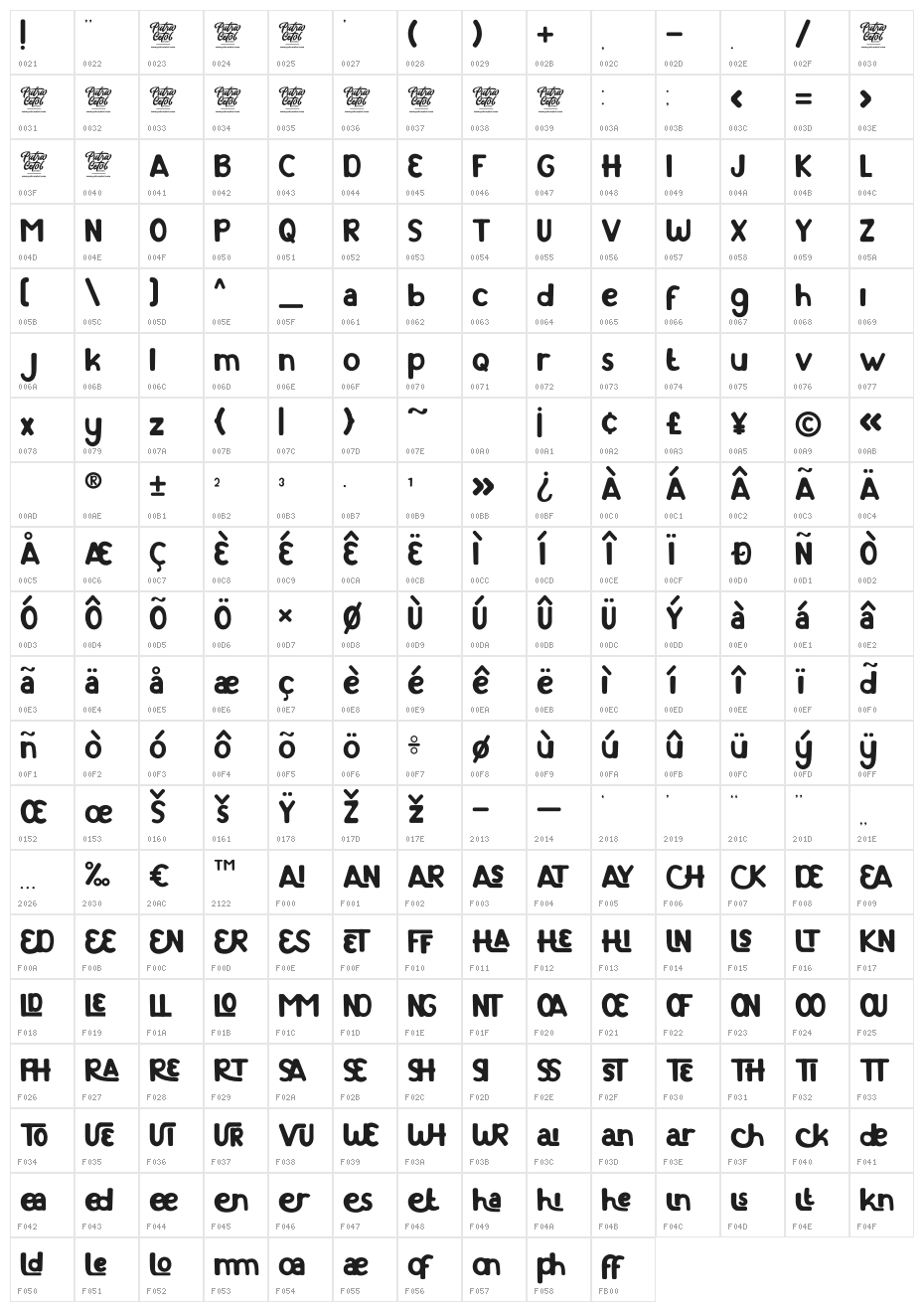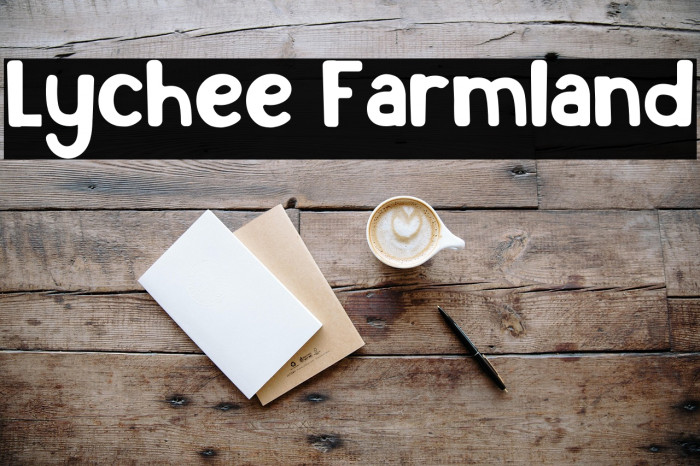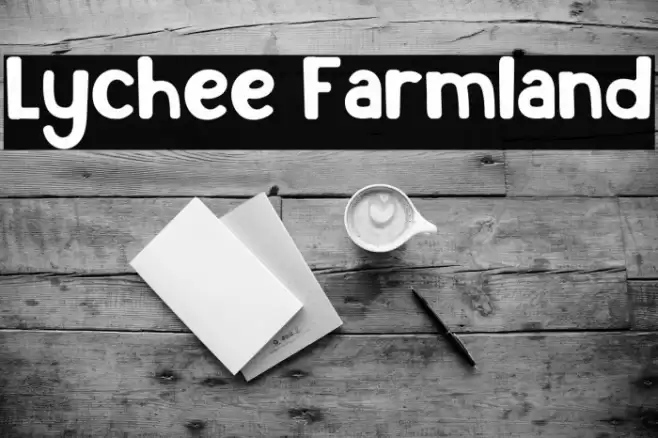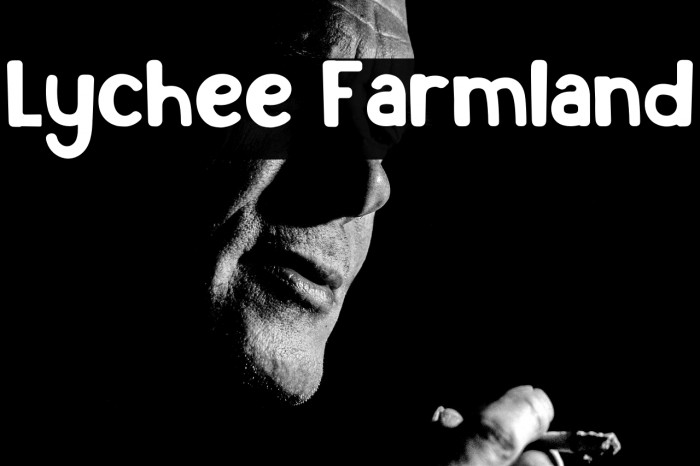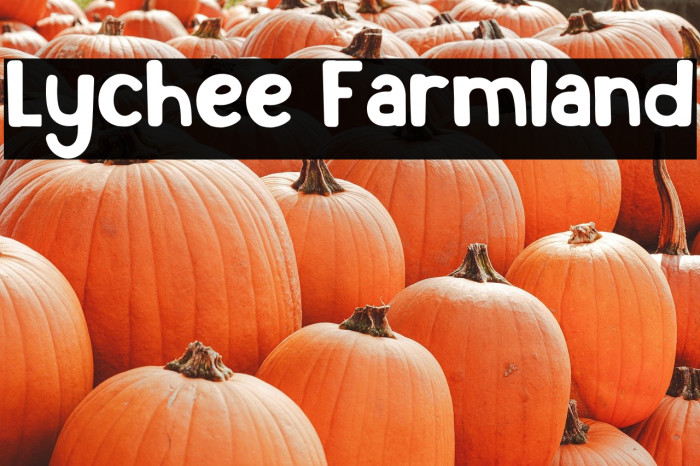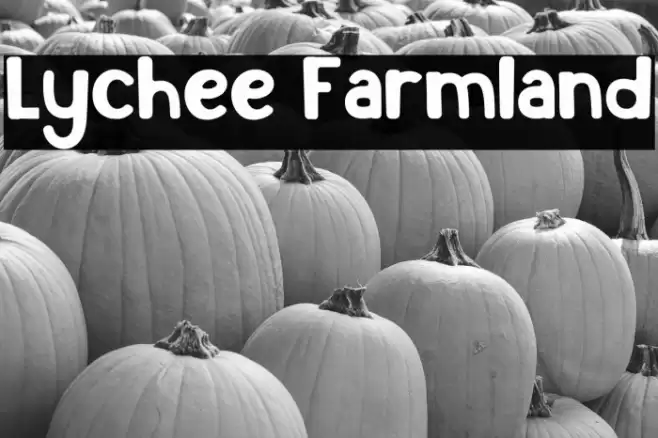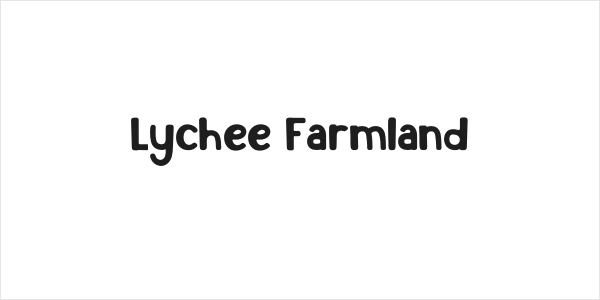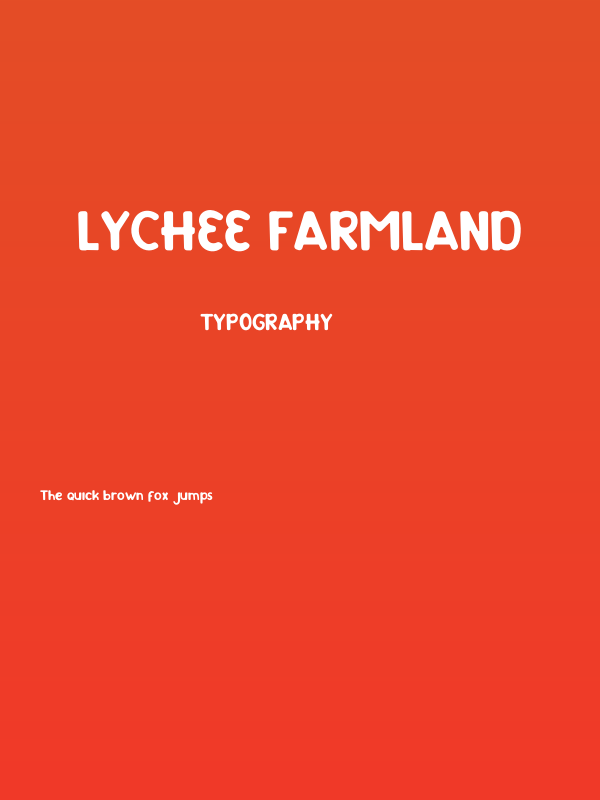
Lychee Farmland Font
Lychee Farmland Description
This font features a playful and rounded style, characterized by its bold and smooth curves. The letters are evenly weighted, giving it a friendly and approachable appearance. The uppercase and lowercase characters maintain a consistent thickness, contributing to its cohesive look. The numerals and special characters follow the same design principles, ensuring uniformity across all elements. Its rounded edges and lack of sharp angles make it suitable for designs that aim to convey warmth and friendliness.
| Proposed Projects | Ideal for children's books, playful branding, casual invitations, and friendly product packaging. |